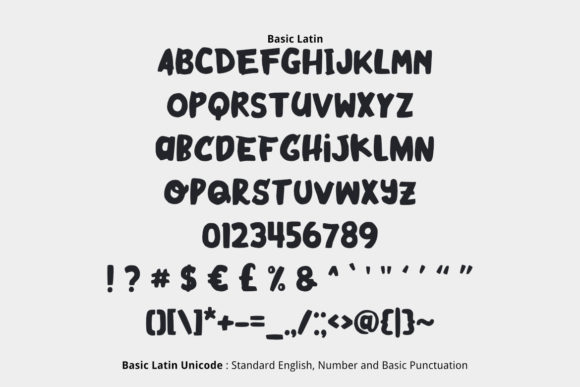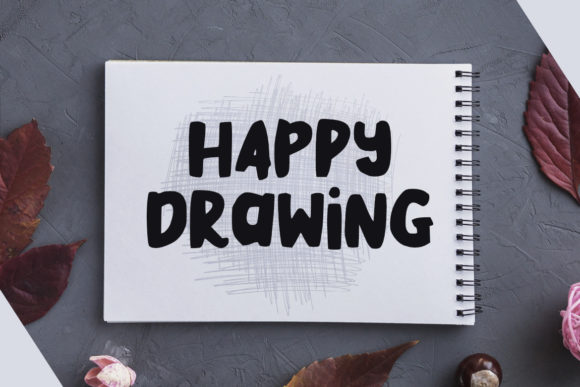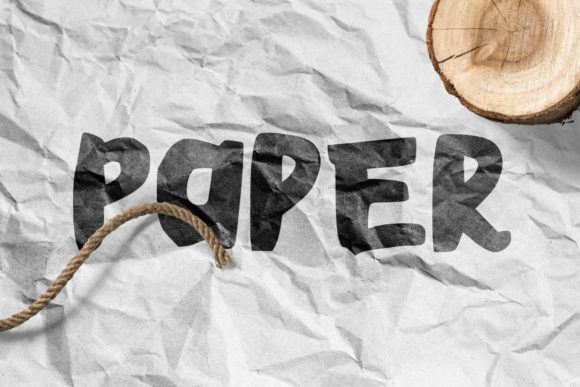
Dried Font: A Bold and Playful Display Font with a Unique Charm
In the world of typography, fonts play a crucial role in conveying messages, expressing emotions, and creating visual identities. For designers and crafters, finding the right font can make all the difference in their creative projects. If you’re looking for a font that exudes confidence, energy, and playfulness, look no further than Dried Font. In this article, we’ll explore the unique features of Dried Font, its inspiration, and how you can get inspired by its strong style.
What is Dried Font?
Dried Font is a bold and playful display font that boasts a unique charm. Its distinctive style is perfect for making a statement, adding a touch of personality to your designs, and standing out from the crowd. Whether you’re working on a branding project, a poster, or a social media graphic, Dried Font is sure to grab attention and leave a lasting impression.
The Inspiration Behind Dried Font
The inspiration behind Dried Font is rooted in its name – “dried.” The font’s creators aimed to capture the essence of dried flowers, leaves, and stems, which are often characterized by their rugged, weathered, and distressed textures. This inspiration is evident in the font’s bold, chunky lines, and irregular shapes, which give it a delightfully handmade feel.
Key Features of Dried Font
So, what makes Dried Font so special? Here are some of its key features:
- Bold and Playful: Dried Font is a display font that’s designed to make a statement. Its bold lines and playful shapes make it perfect for headlines, titles, and short phrases.
- Unique Charm: The font’s irregular shapes and distressed textures give it a unique charm that’s hard to find in other fonts.
- Highly Versatile: Dried Font can be used in a wide range of creative projects, from branding and advertising to packaging and digital media.
- Easy to Read: Despite its bold and playful style, Dried Font is surprisingly easy to read, making it perfect for use in titles, headings, and short paragraphs.
How to Get Inspired by Dried Font’s Strong Style
Now that we’ve explored the features of Dried Font, let’s talk about how you can get inspired by its strong style. Here are some tips:
- Experiment with Bold Headlines: Use Dried Font to create bold, eye-catching headlines that grab attention and draw the reader in.
- Play with Texture and Patterns: Combine Dried Font with textures and patterns that reflect its distressed, weathered aesthetic.
- Mix and Match with Other Fonts: Pair Dried Font with other fonts that complement its playful, bold style.
- Use it for Branding and Identity: Use Dried Font to create a strong brand identity that’s bold, confident, and playful.
Whether you’re a designer or a crafter, Dried Font is a versatile font that can be used in a wide range of creative projects. Here are some tips:
- Use it for Large-Scale Projects: Dried Font is perfect for large-scale projects like billboards, posters, and signage.
- Experiment with Colors: Try pairing Dried Font with bold, bright colors that reflect its playful style.
- Get Creative with Ligatures: Use Dried Font’s ligatures to add a touch of personality to your designs.
| Font Name | Dried Font |
| Author | YandiDesigns |
In conclusion, Dried Font is a bold and playful display font that’s perfect for designers and crafters looking to add a touch of personality to their creative projects. With its unique charm, highly versatile style, and strong aesthetic, Dried Font is sure to inspire you to create something amazing. So, get creative, experiment with Dried Font, and see what amazing things you can create!